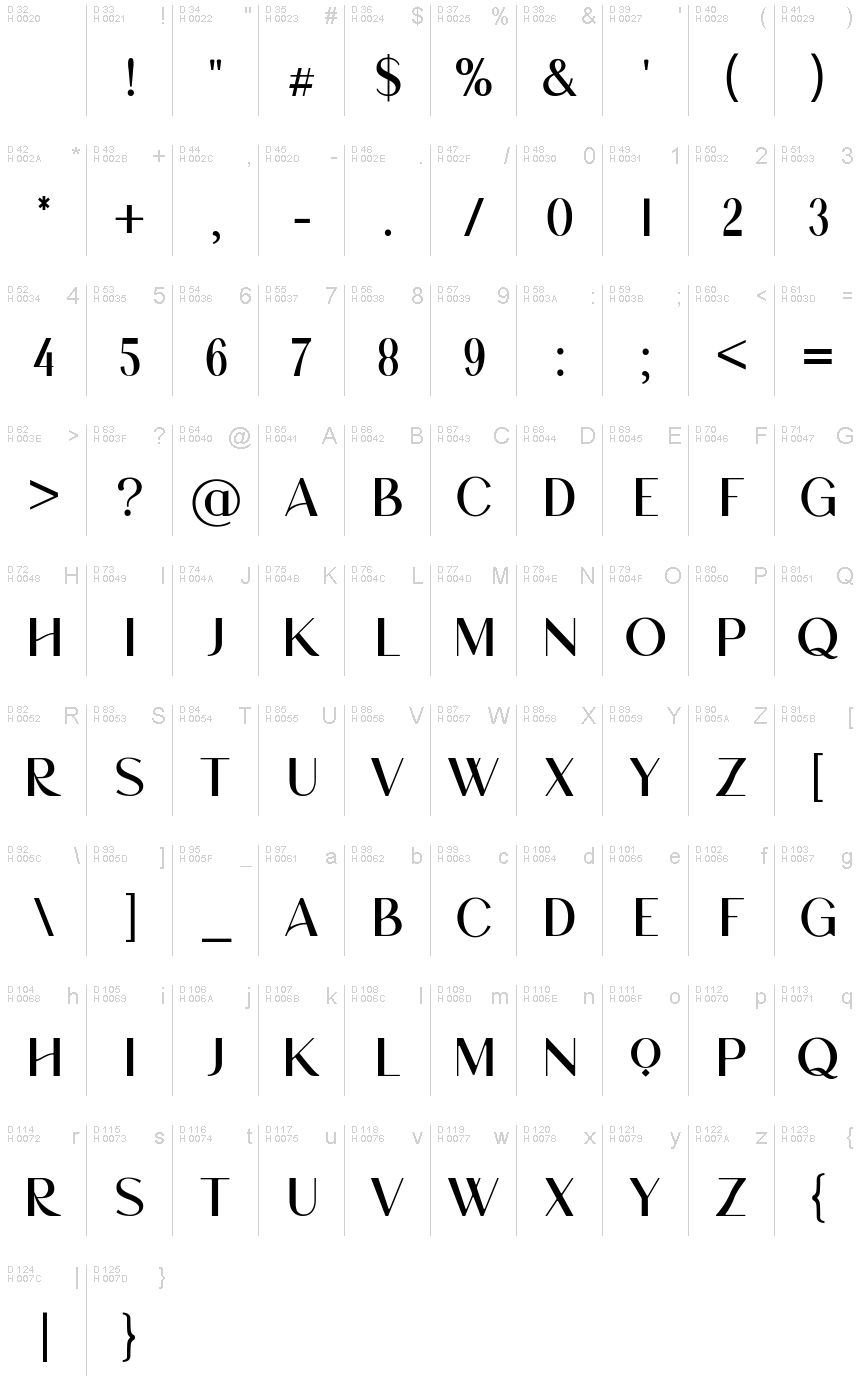
Brightwood
Brightwood, a captivating serif font designed by UI Creative, exudes a timeless elegance and refined sophistication. Meticulously crafted, its striking letterforms seamlessly blend traditional influences with a modern sensibility. The font's harmonious balance of delicate serifs and robust strokes creates a visually striking and impactful presence, evoking a sense of sophistication and luxury.
Brightwood's versatility makes it a compelling choice for a diverse range of design applications, from high-end editorial spreads and elegant branding initiatives to exclusive packaging designs and prestigious event materials. Its refined aesthetic lends itself beautifully to titles, headers, and premium-quality typographic compositions, effortlessly elevating the visual appeal of any project.